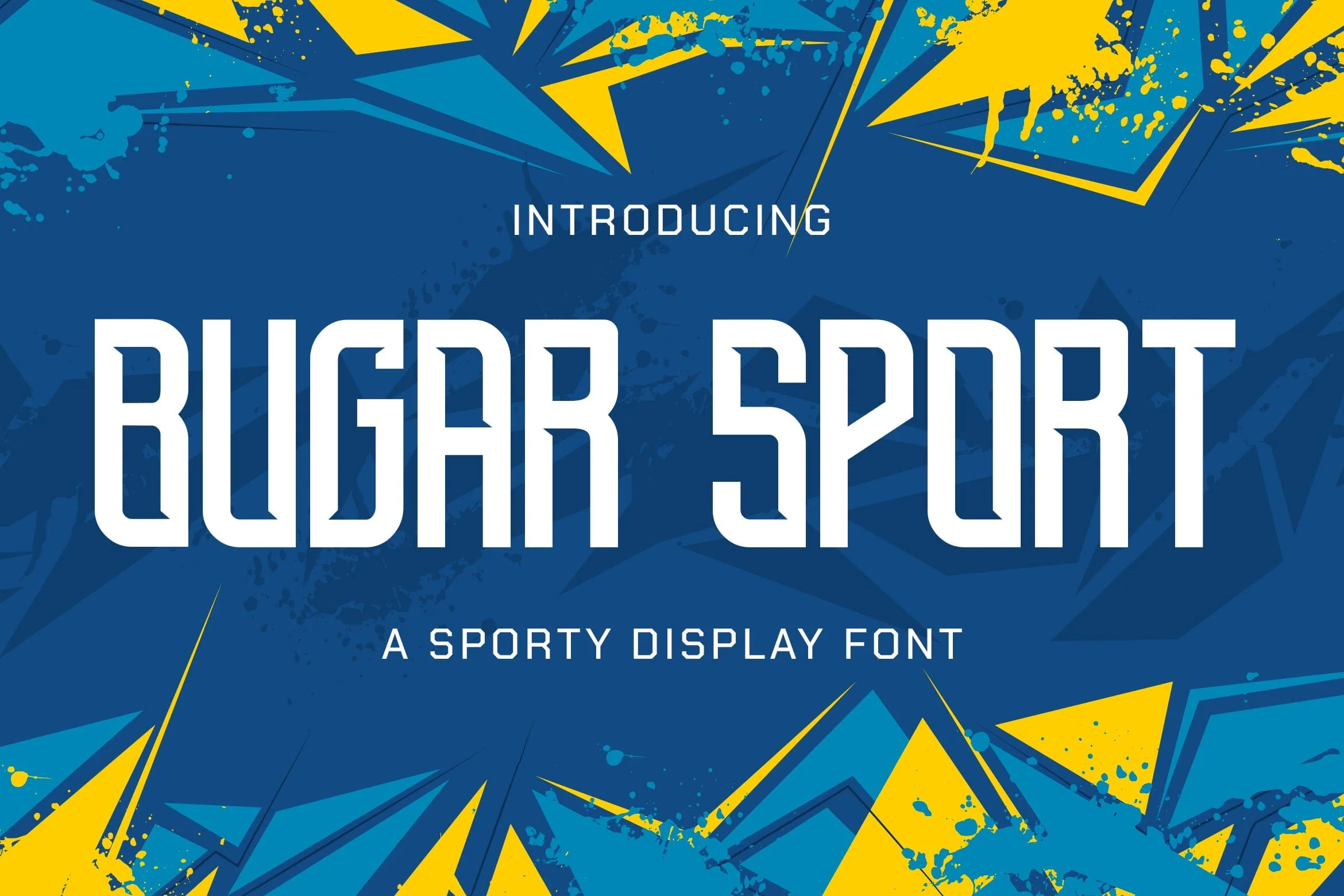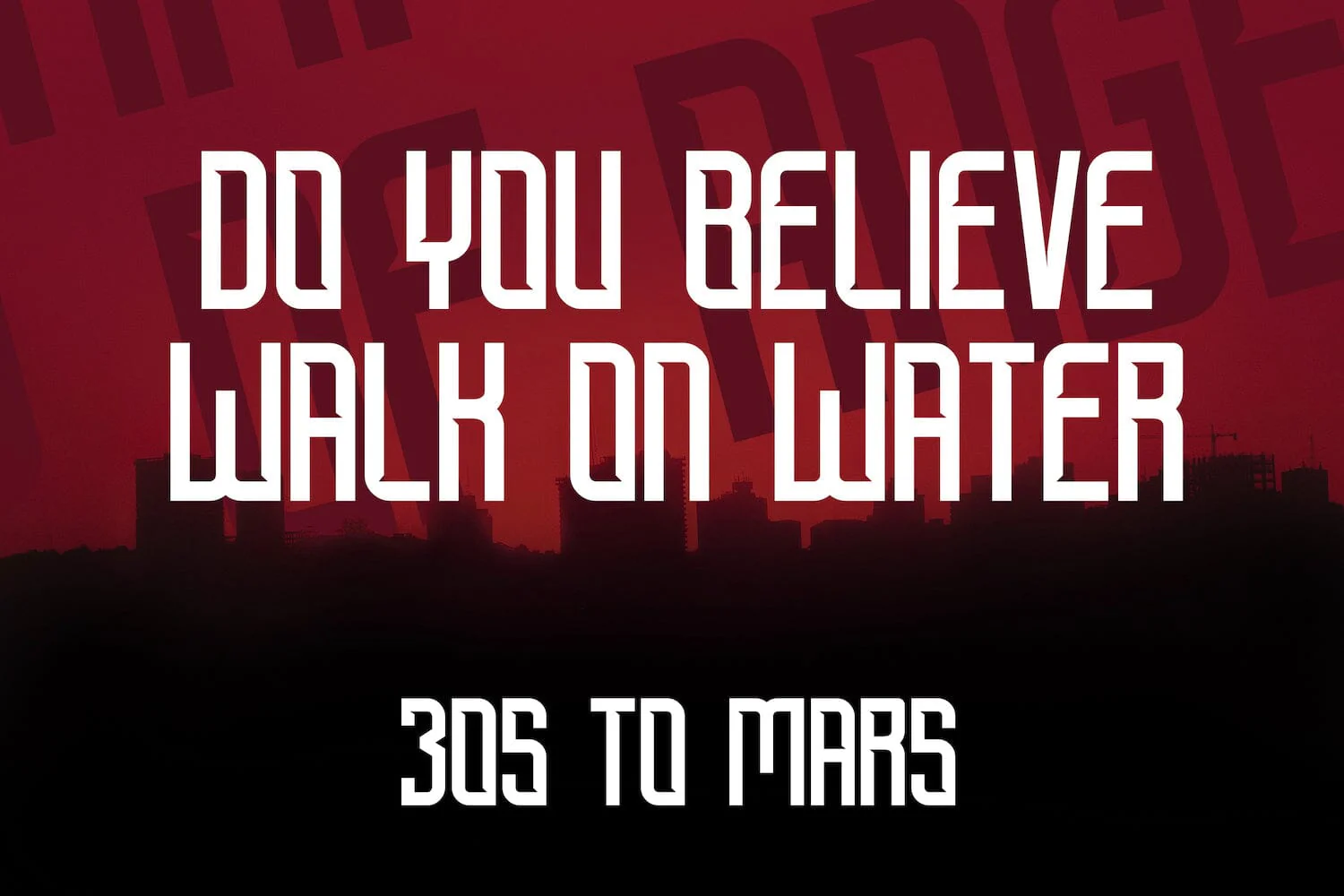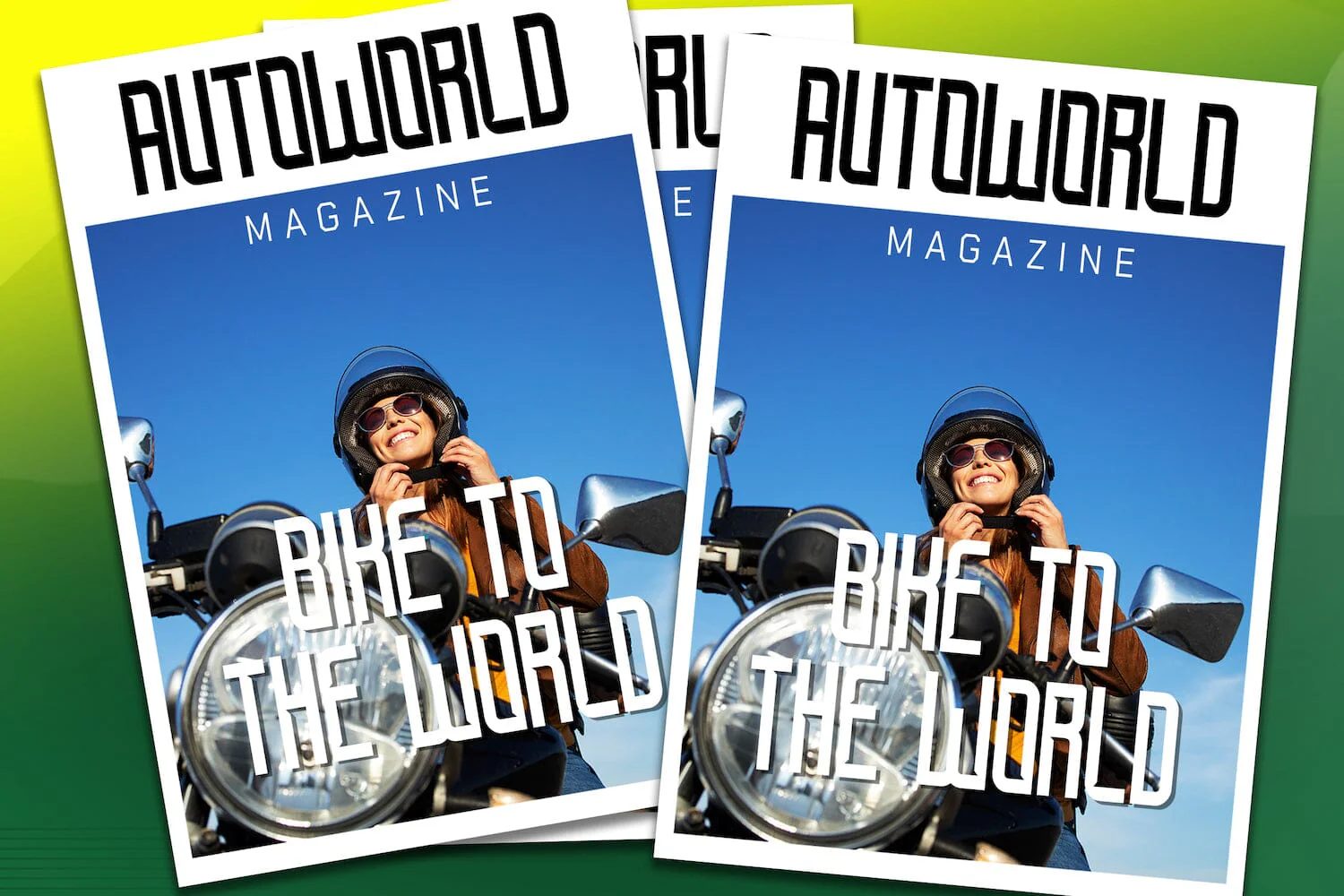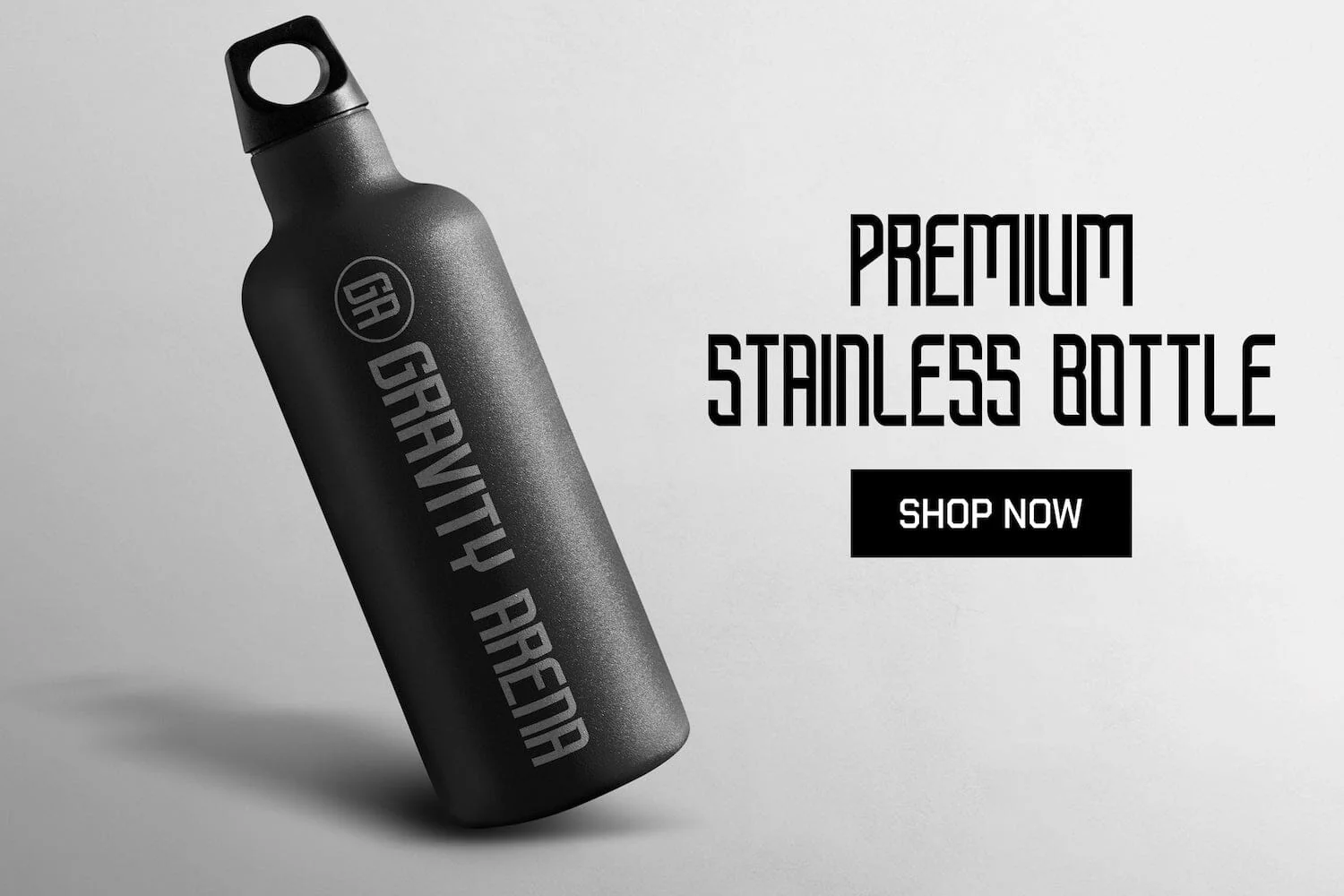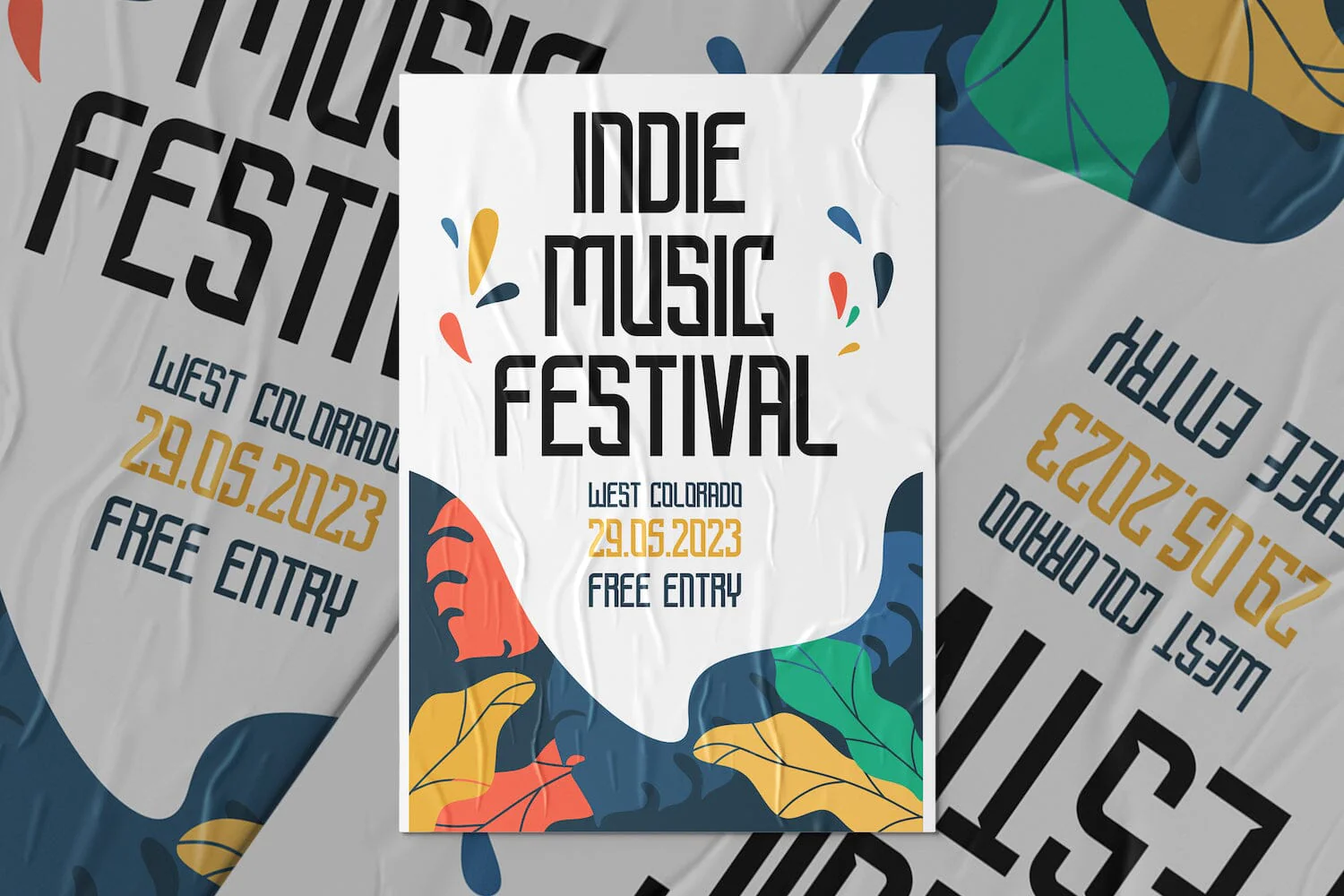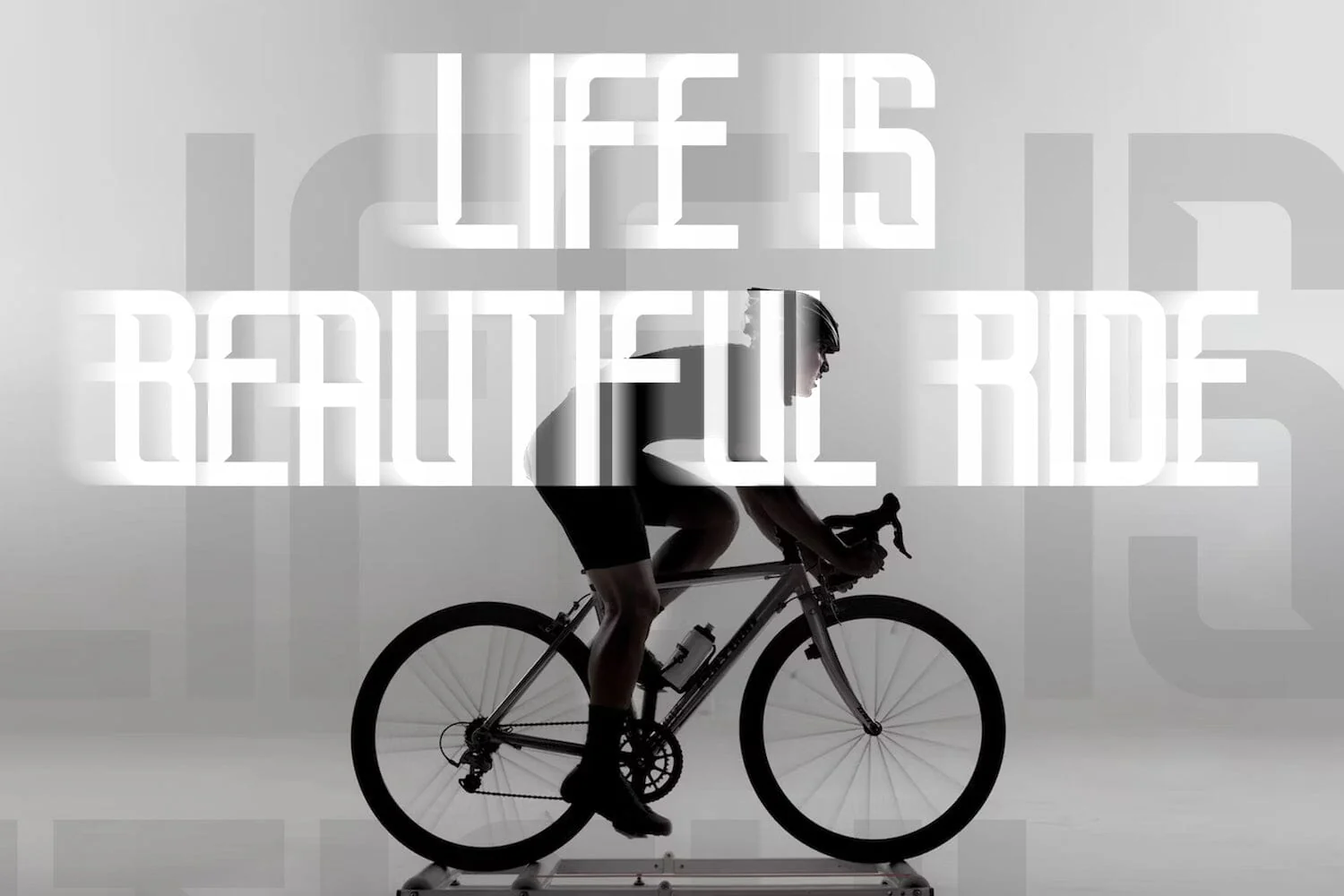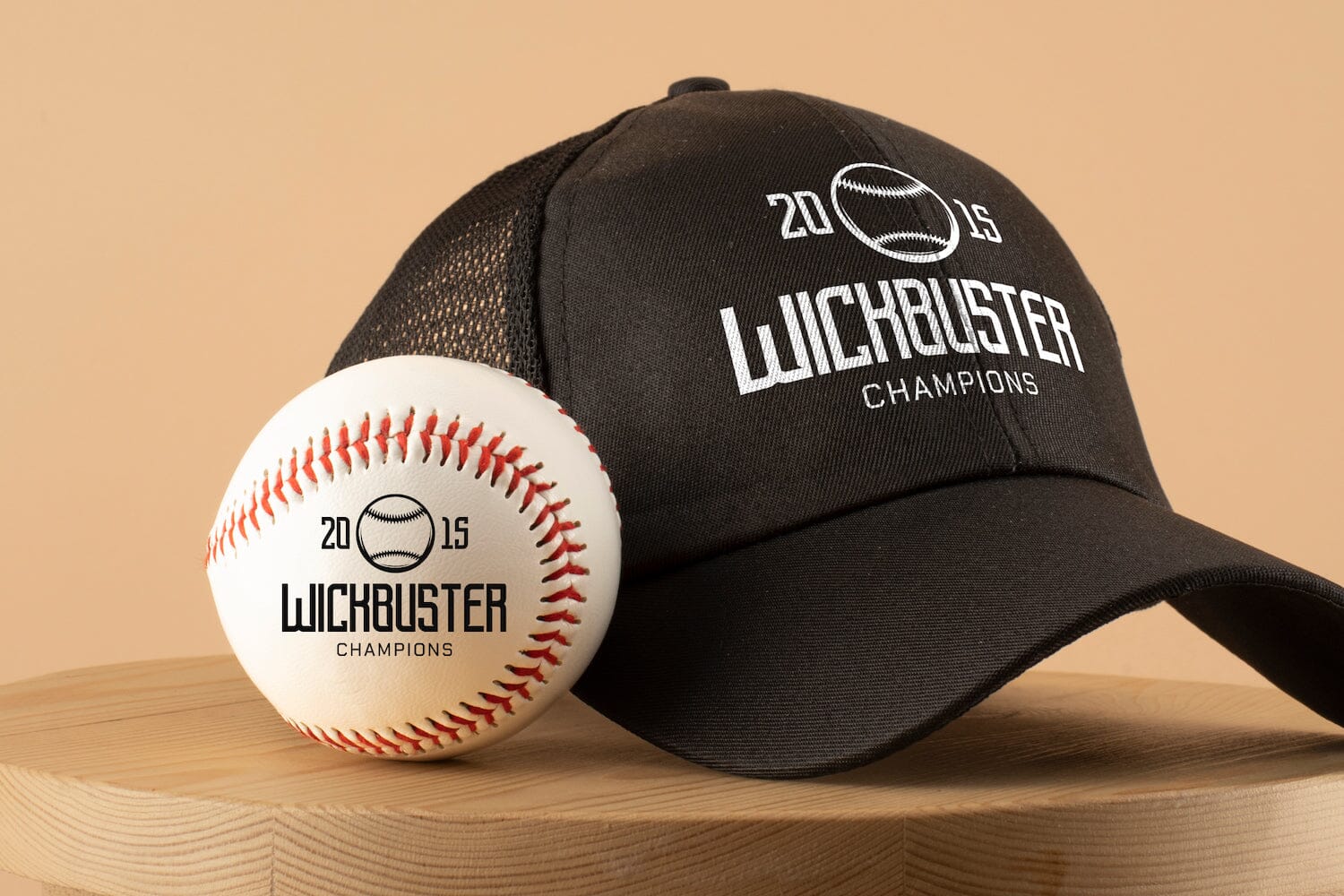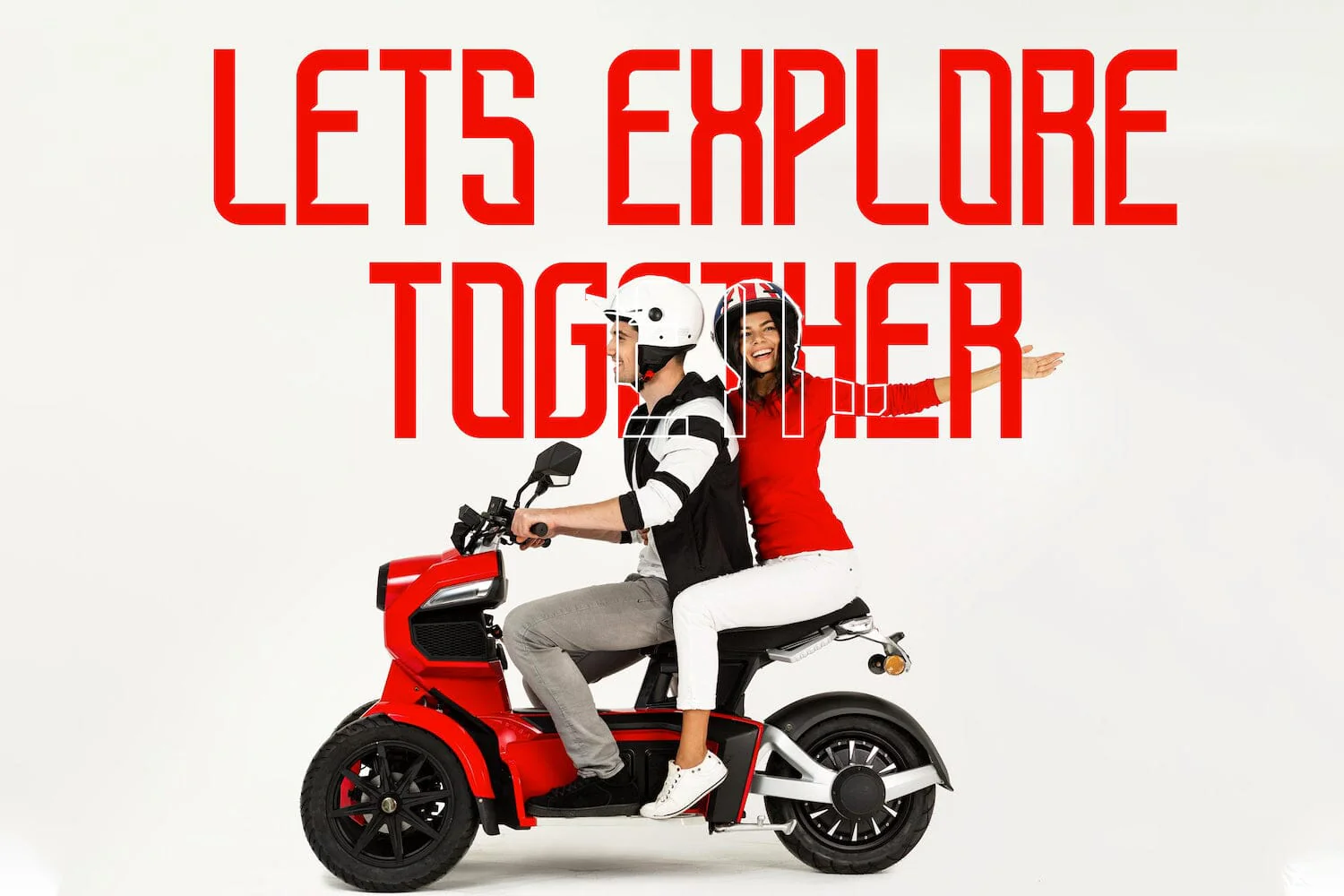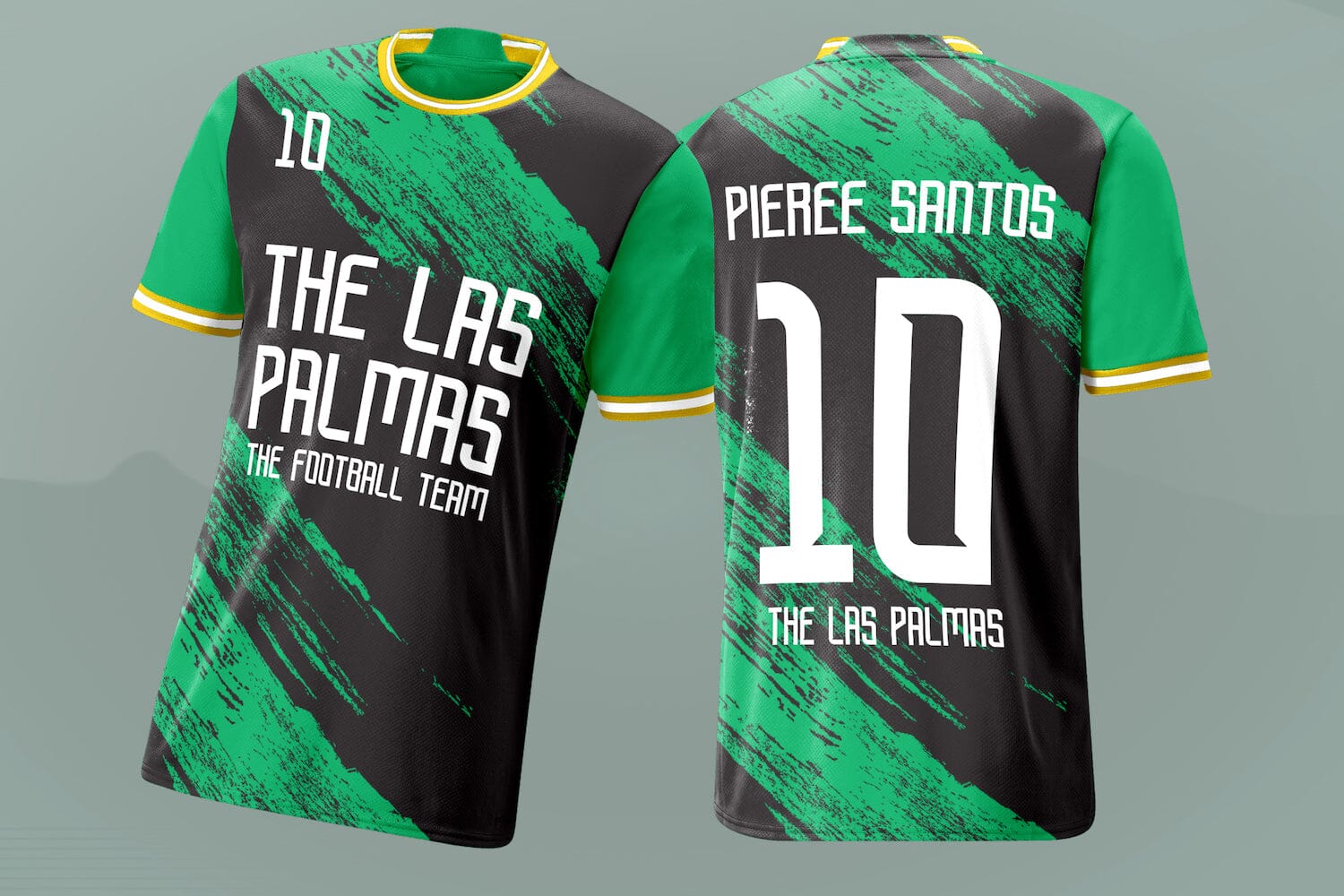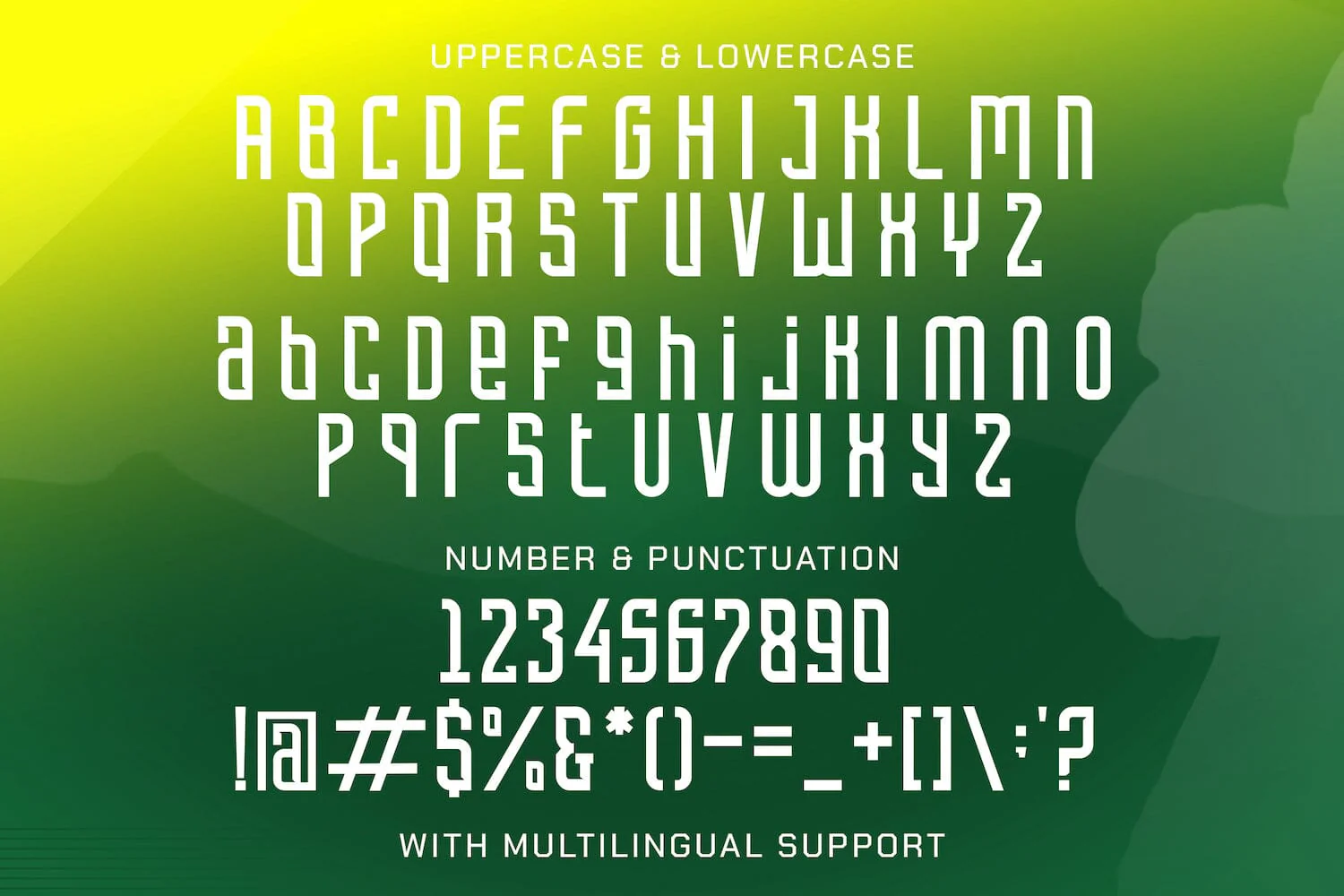
Bugar Sport - Sporty Display Font
Introducing Bugar Sport - Sporty Display Font
Bugar Sport is a sporty and modern display font. This playfully conceptual typeface font will look truly outstanding in a wide range of contexts. This font is very suitable for your any sports needs, such as: Football Jersey, Basketball Jersey, Soccer Jersey, and Other Sports purpose.
Introducing Bugar Sport - Sporty Display Font
Bugar Sport is a sporty and modern display font. This playfully conceptual typeface font will look truly outstanding in a wide range of contexts. This font is very suitable for your any sports needs, such as: Football Jersey, Basketball Jersey, Soccer Jersey, and Other Sports purpose.